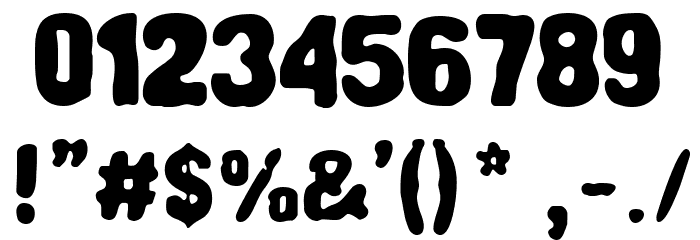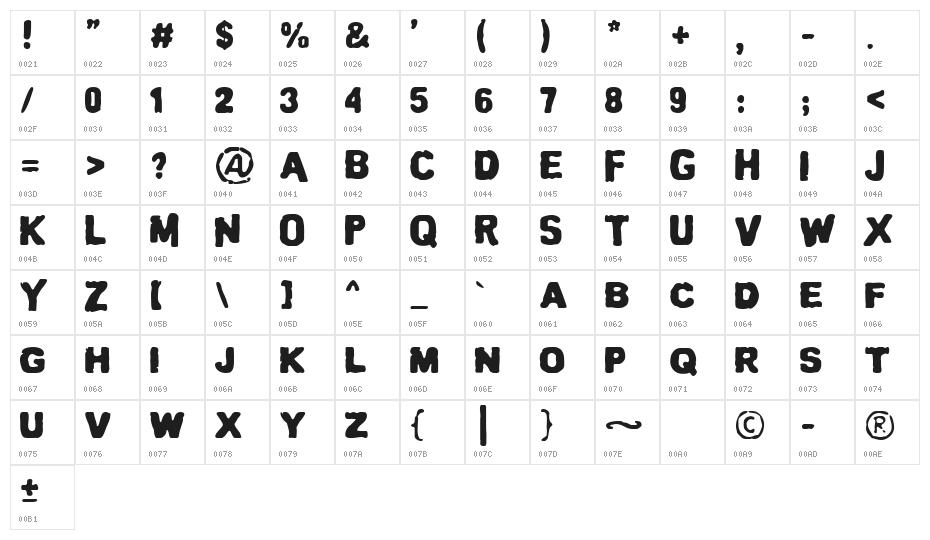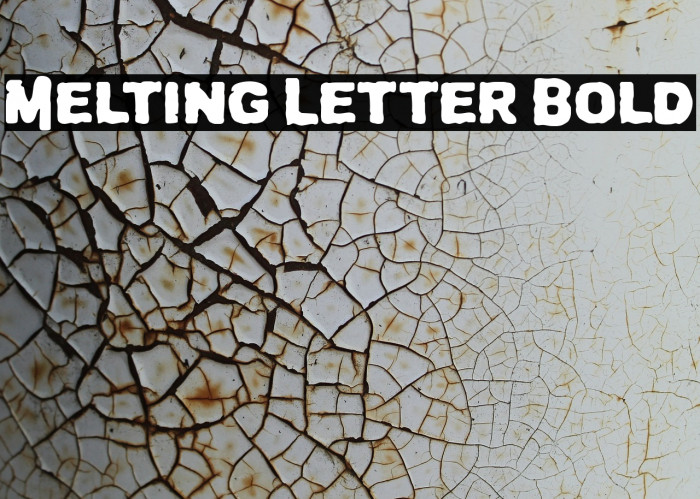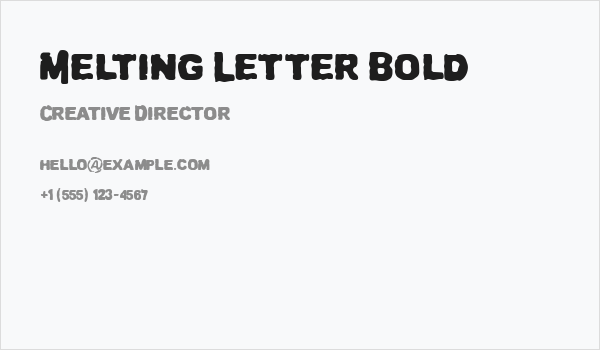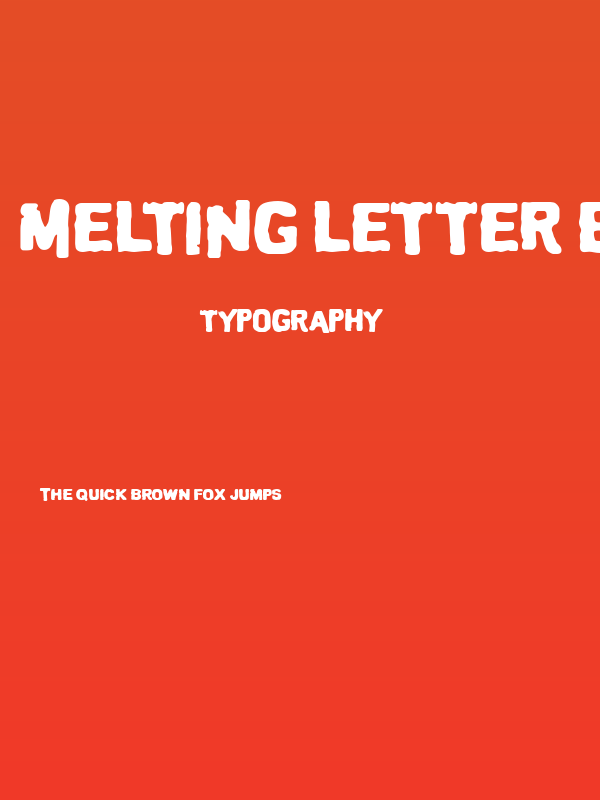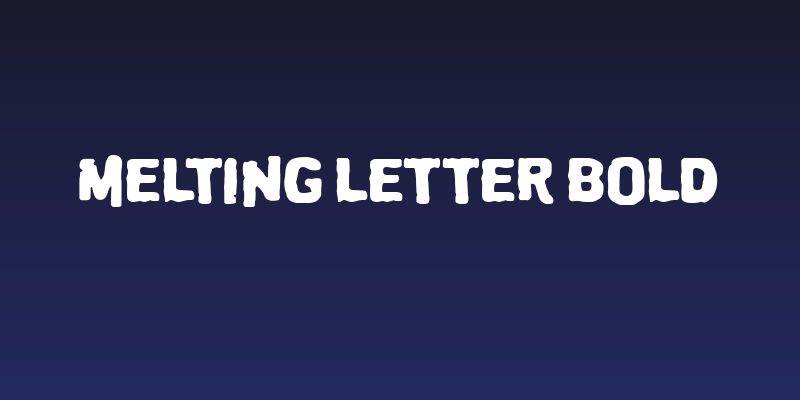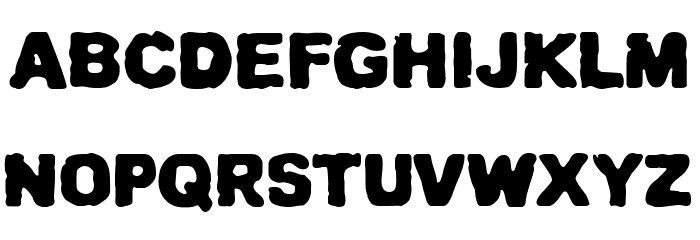
Melting Letter Bold Font
Melting Letter Bold Description
This bold and playful font features a unique melting effect, giving each character a fluid and dynamic appearance. The letters are thick and rounded, with a whimsical style that suggests movement and creativity. The uppercase and lowercase letters maintain a consistent weight, while the numbers and special characters complement the overall design. The font's boldness makes it stand out, ideal for eye-catching designs. Its playful nature is perfect for projects that require a fun and engaging look.
| Overall Style | Playful, Creative |
| Proposed Projects | Ideal for children's book covers, playful branding, event posters, and creative digital content. |